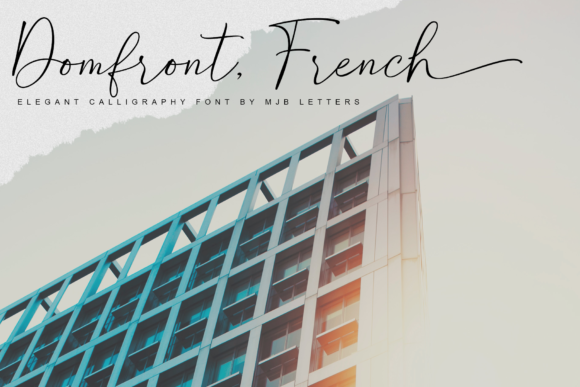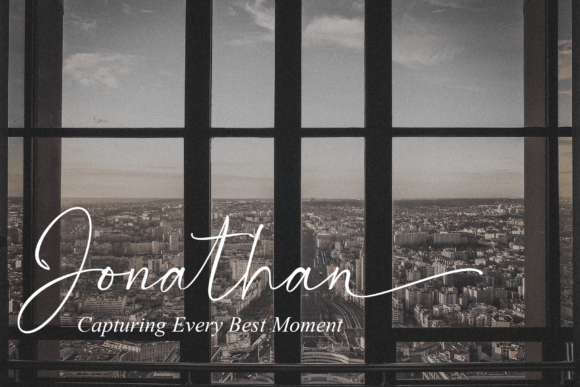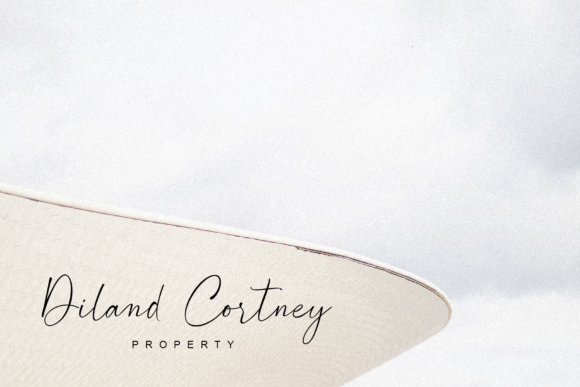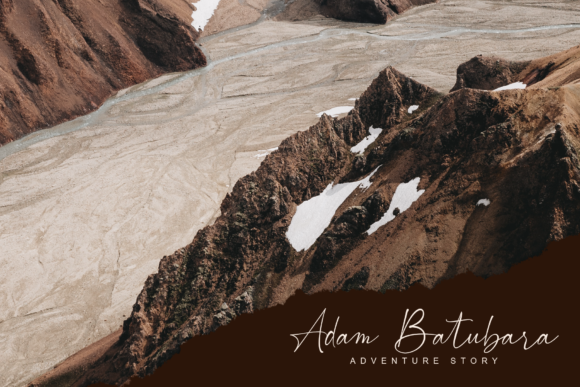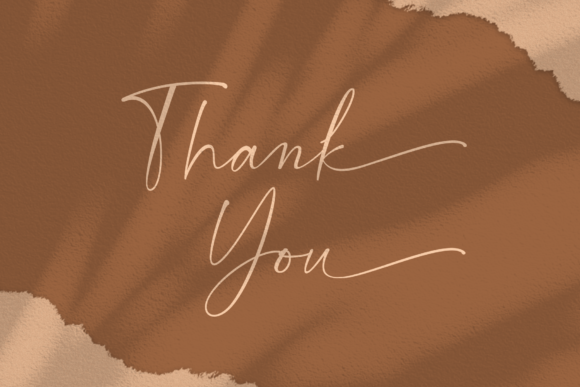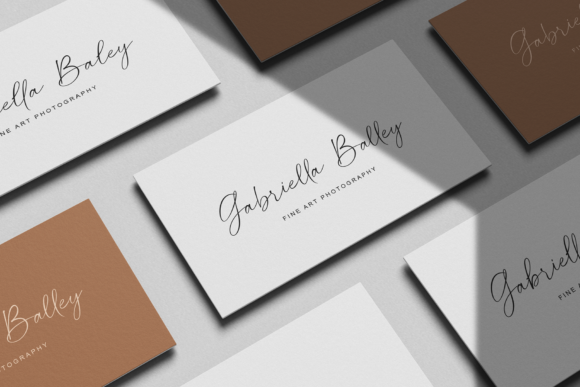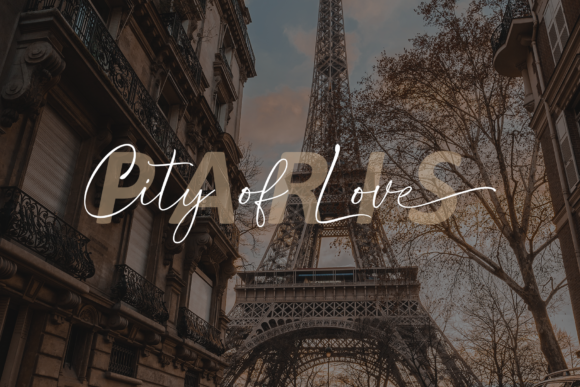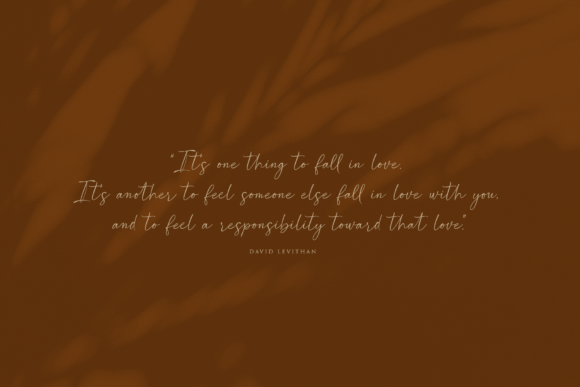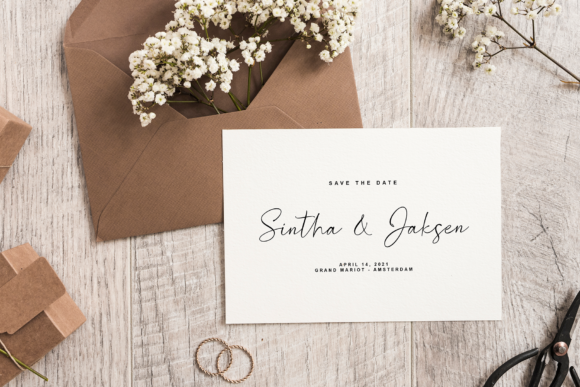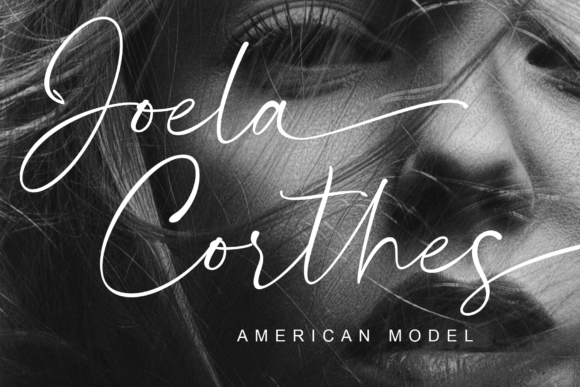
Southland Font
About Southland Font
Southland is a magical handwritten font carefully created with a touch of elegance. This is a beautiful combination of timeless elegance and authentic calligraphy. Southland is the perfect font for making original and outstanding designs.